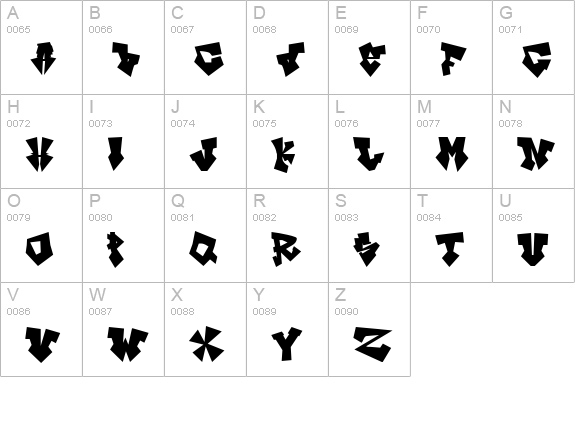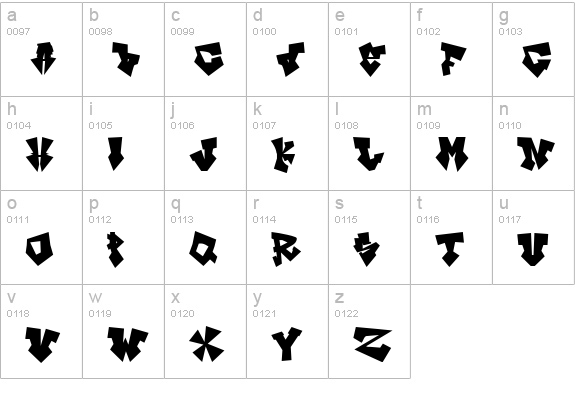
InK's ol' Bitch Font Details
Introducing InK's ol' Bitch font, a dynamic and captivating typeface that exudes a unique blend of elegance and edginess. With its bold and assertive letterforms, this font commands attention and makes a powerful statement. InK's ol' Bitch font is perfect for those who dare to be different and want to inject a touch of rebelliousness into their designs. Its beautifully crafted characters exude confidence and evoke a sense of intrigue, making it an ideal choice for branding, logos, headlines, and more. What sets InK's ol' Bitch font apart is not only its stunning aesthetics, but also the fact that it is freely available to download at FontsMarket.com. Yes, you read that right – this remarkable font can be yours without spending a dime. Embrace the freedom to express your creativity without any limitations as you unleash the potential of InK's ol' Bitch font. Whether you're a designer, artist, or simply someone seeking to make a bold statement, this font is the perfect tool to elevate your work to new heights. So, don't miss out on this opportunity to add a touch of sophistication and rebelliousness to your designs. Download InK's ol' Bitch font today from FontsMarket.com and embark on a journey of creative exploration like never before.